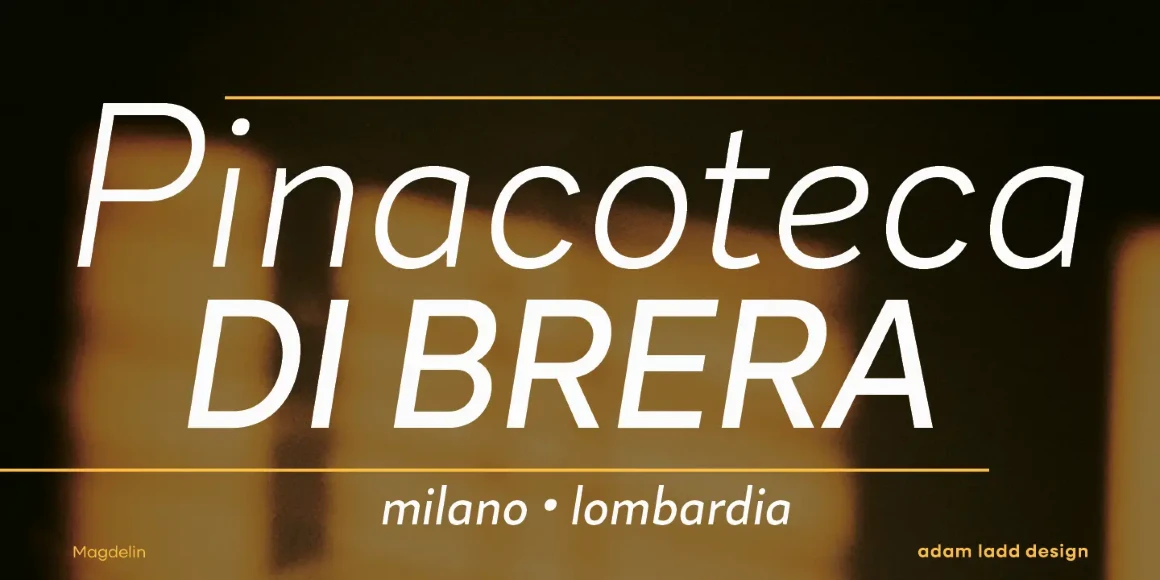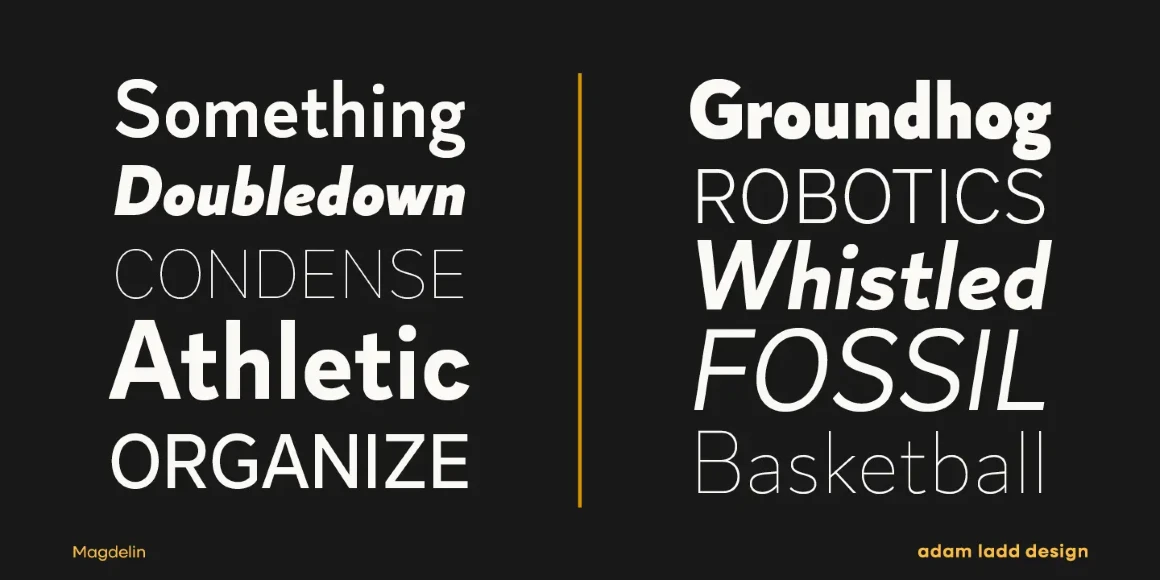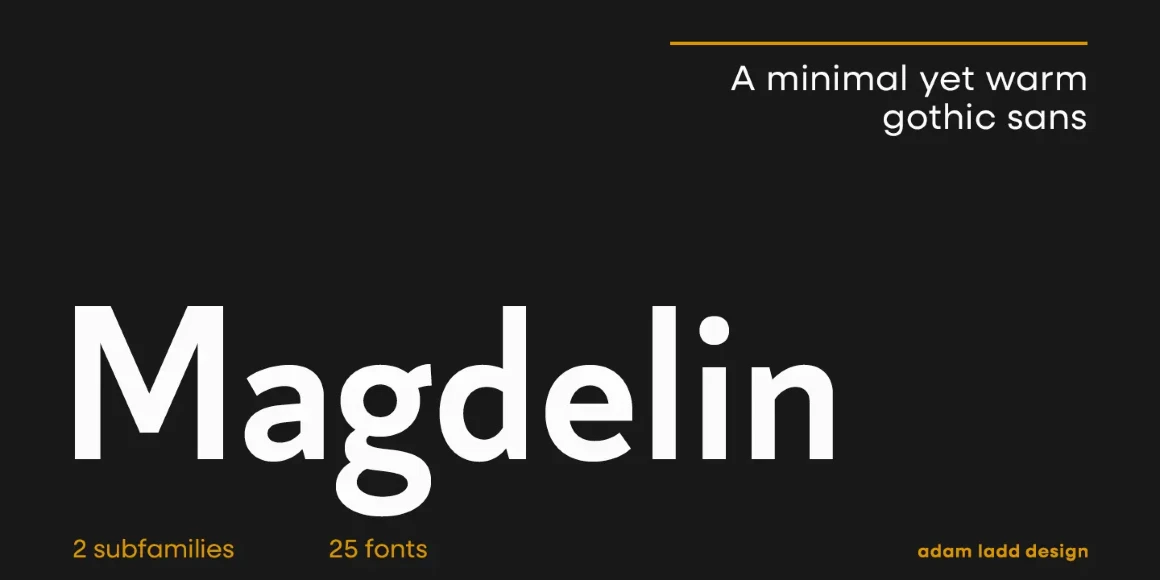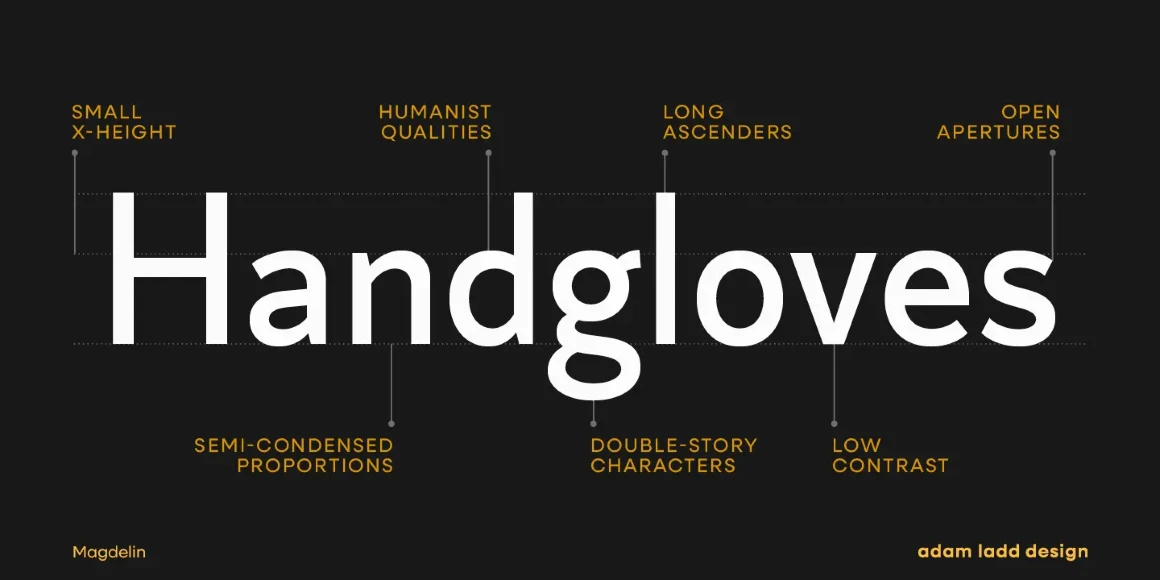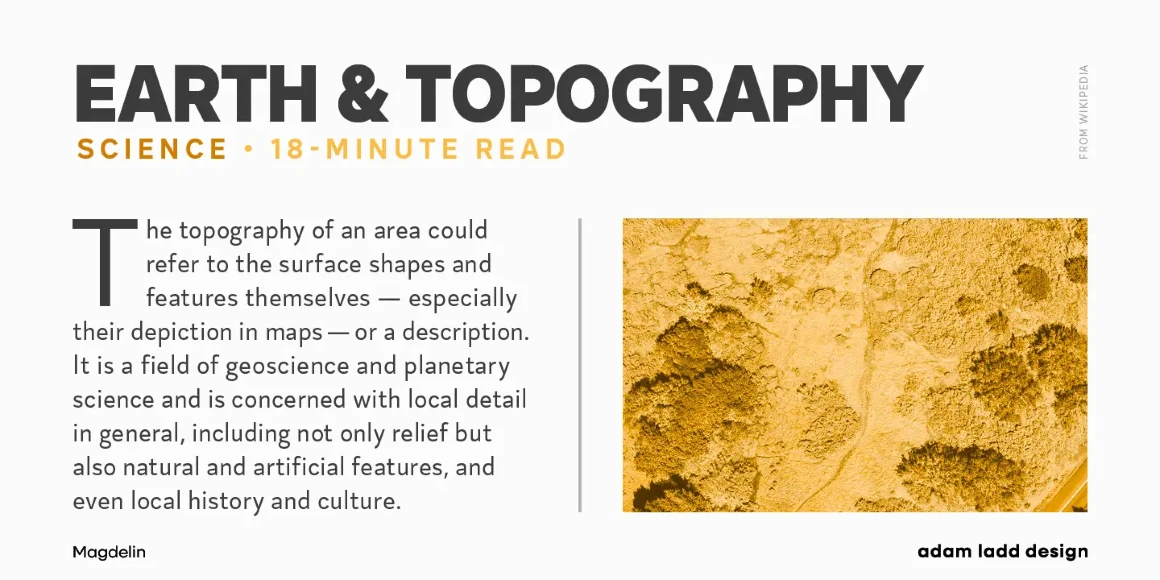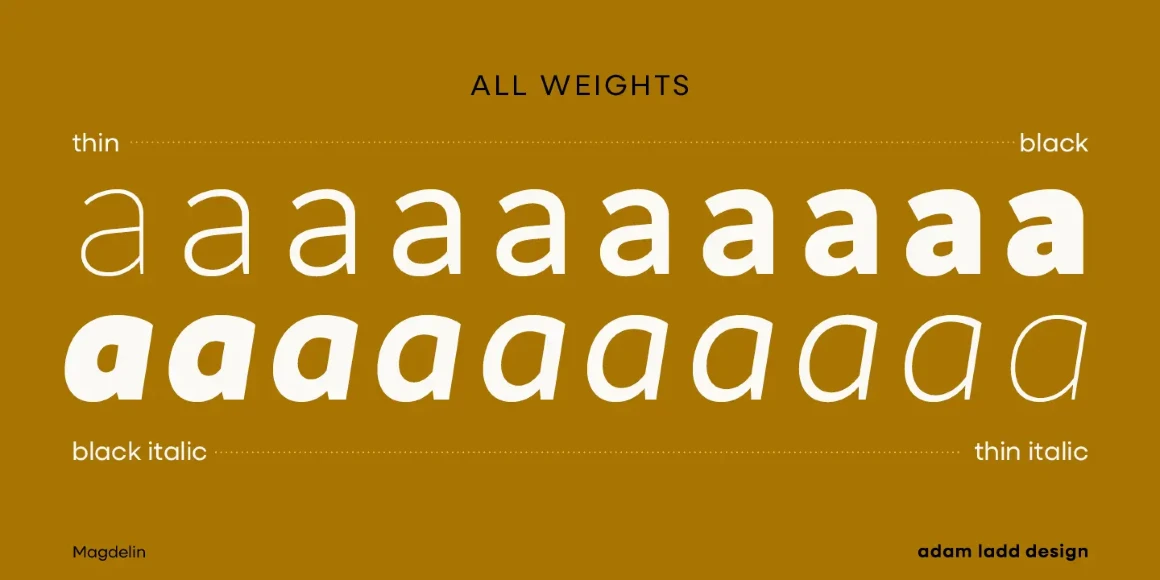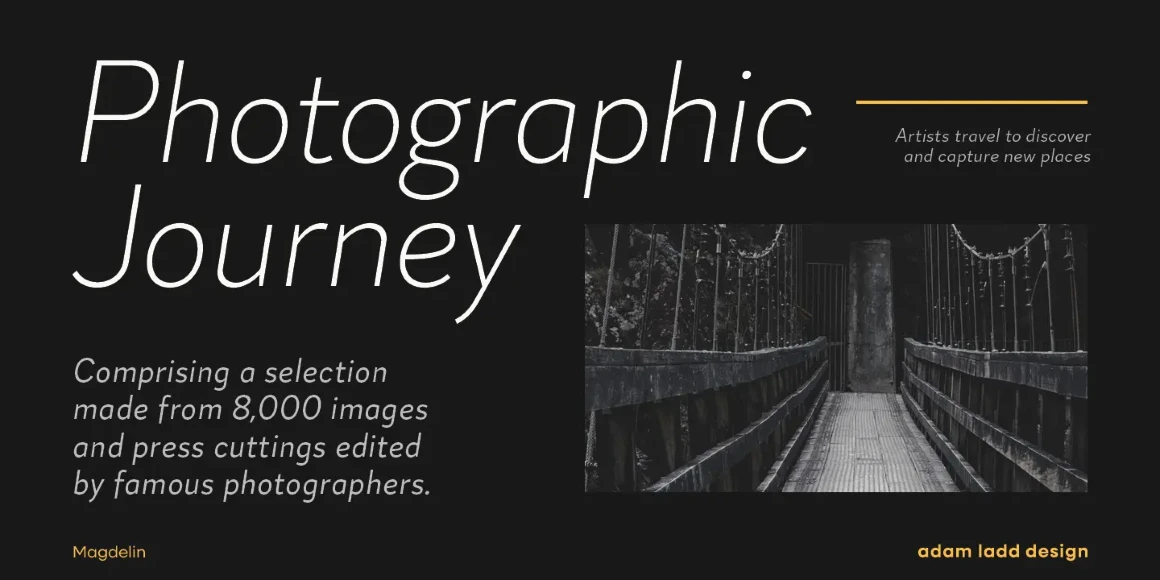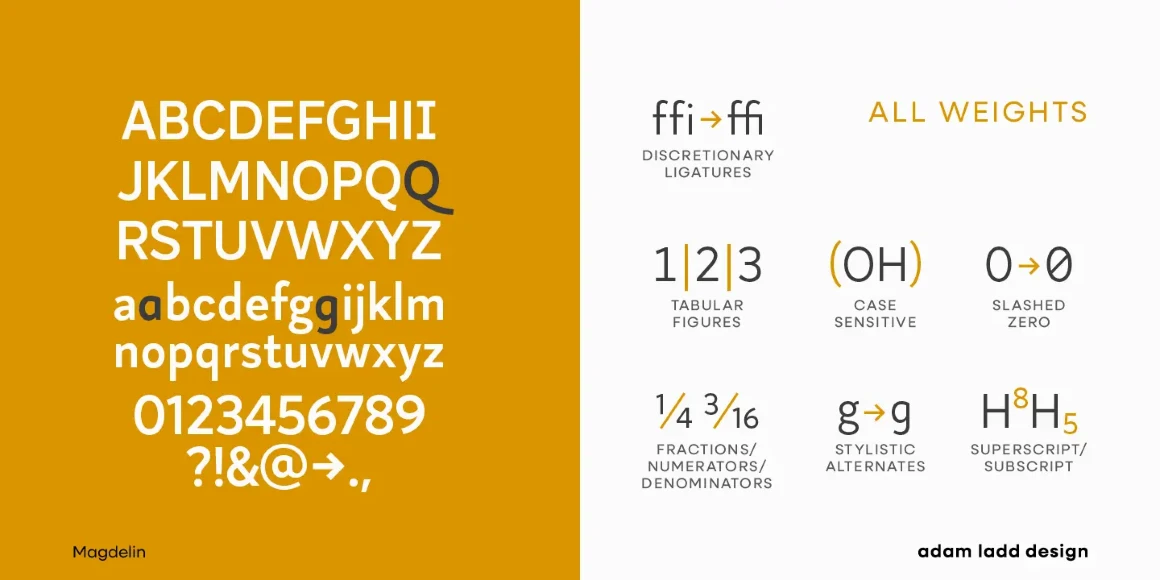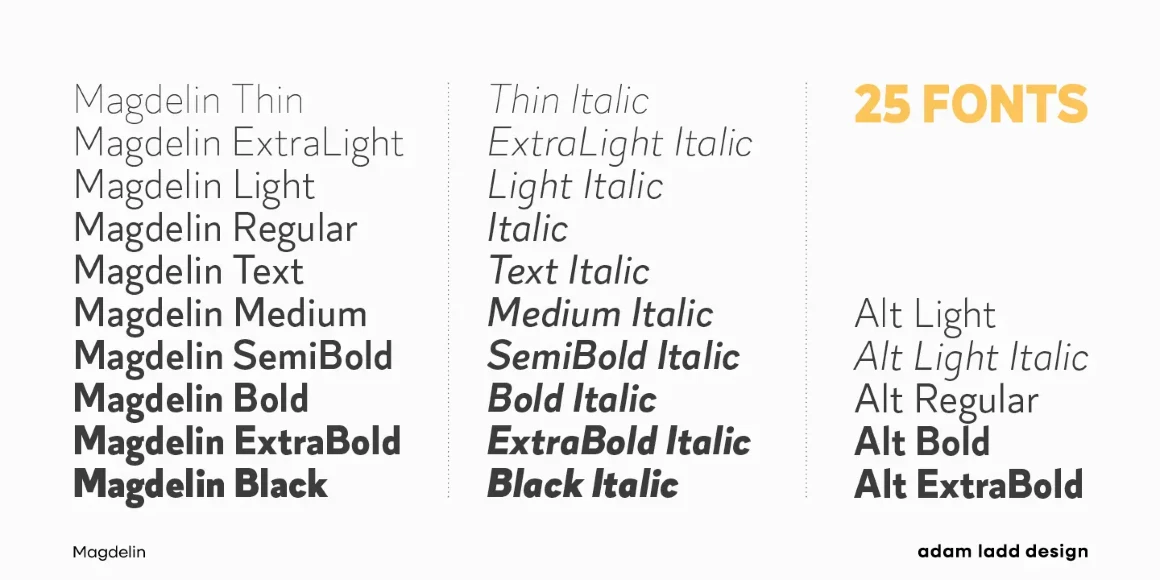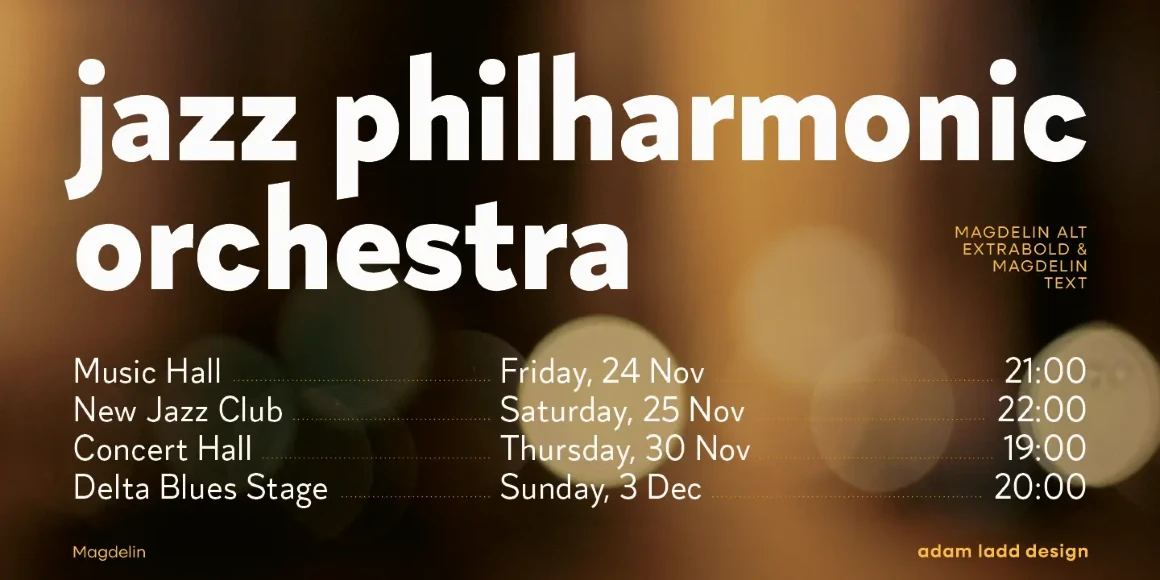
Magdelin Alt
By Adam Ladd
At its core, Magdelin Alt is a minimal Gothic sans having simple forms and low contrast. Yet, it takes some cues from the Humanist class with its calligraphic details in angled terminals and italics. The small x-height, long ascenders and descenders, and semi-condensed proportions give it a classic vintage feel while still stylishly modern in current typographic landscapes. The clean design makes it a valuable, versatile workhorse for branding, packaging, editorial, books, websites, and more.